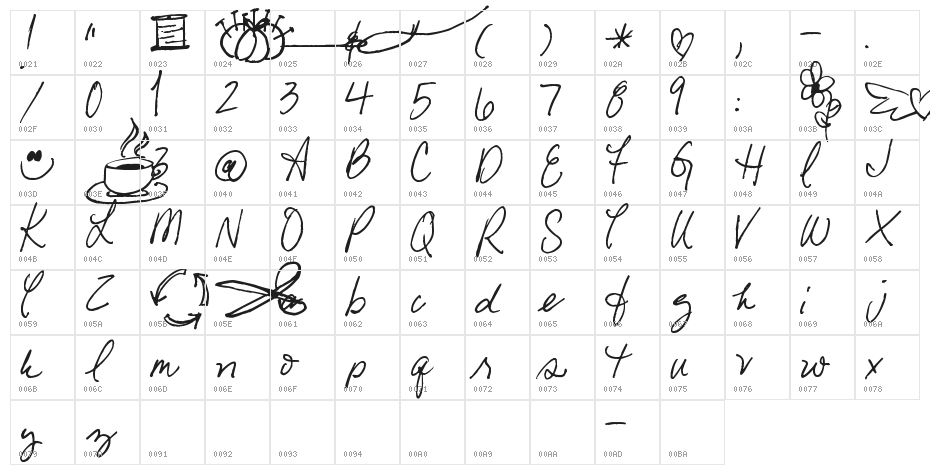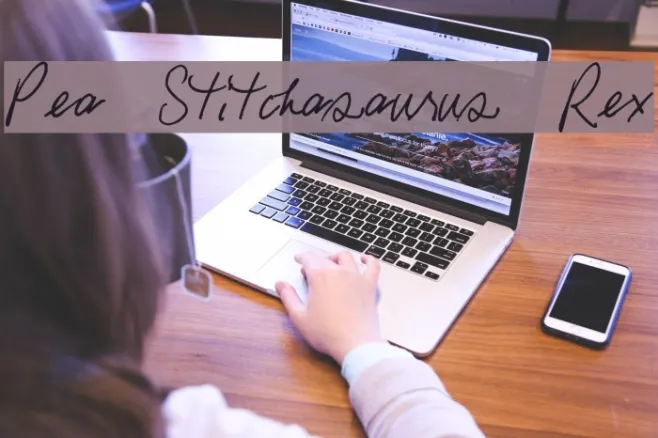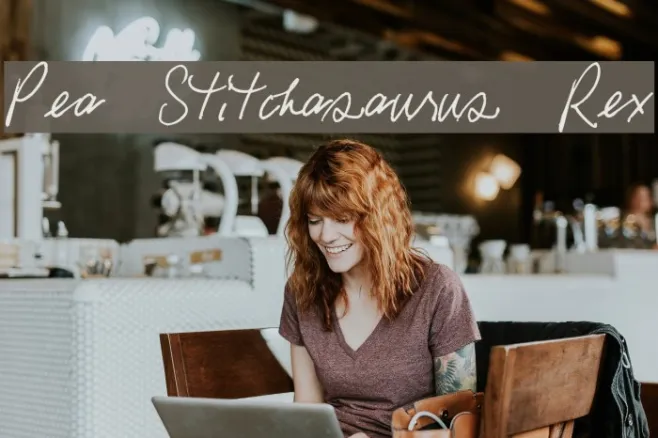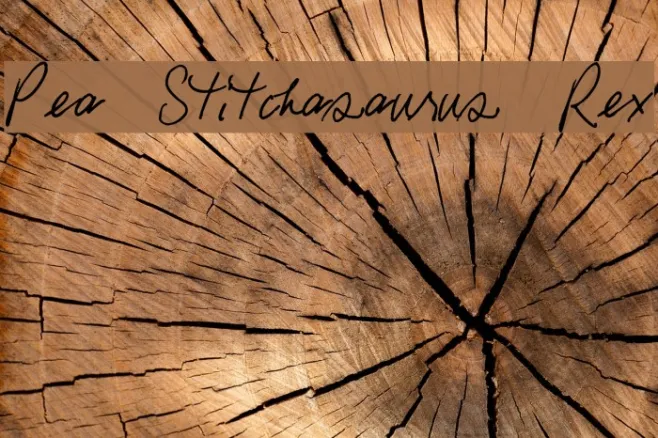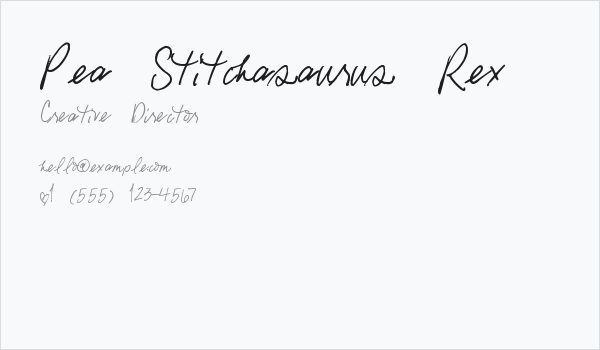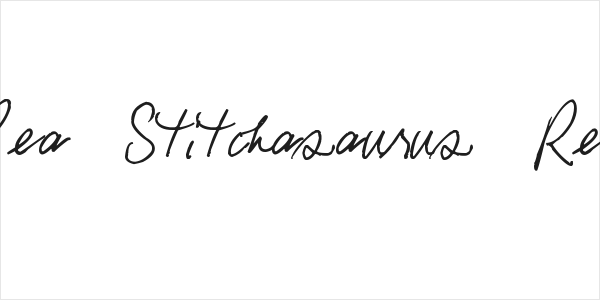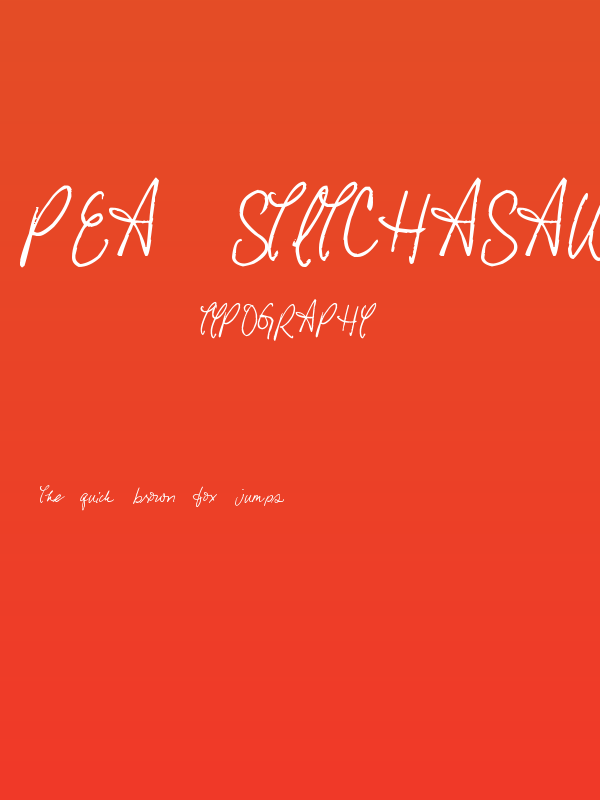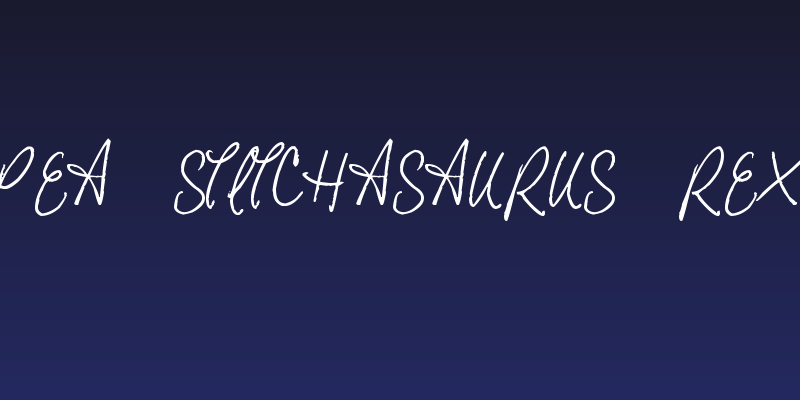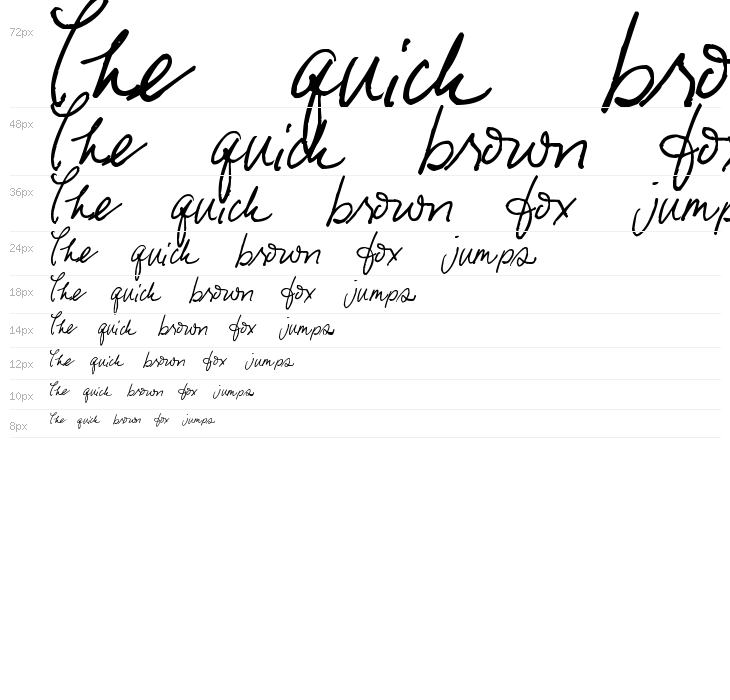
Pea Stitchasaurus Rex Font
Pea Stitchasaurus Rex Description
This font features a playful and whimsical handwritten style, characterized by its fluid and dynamic strokes. The letters are connected in a cursive manner, giving it a personal and informal touch. The uppercase letters are slightly larger and more pronounced, while the lowercase letters maintain a consistent flow. Numbers and special characters are integrated seamlessly, maintaining the overall casual aesthetic. The font's unique charm lies in its imperfect lines and organic feel, making it ideal for projects that require a personal or creative touch.
| Use Case | Greeting cards, Personal notes, Creative invitations |
| Proposed Projects | Ideal for greeting cards, personal notes, creative invitations, and playful branding projects. |